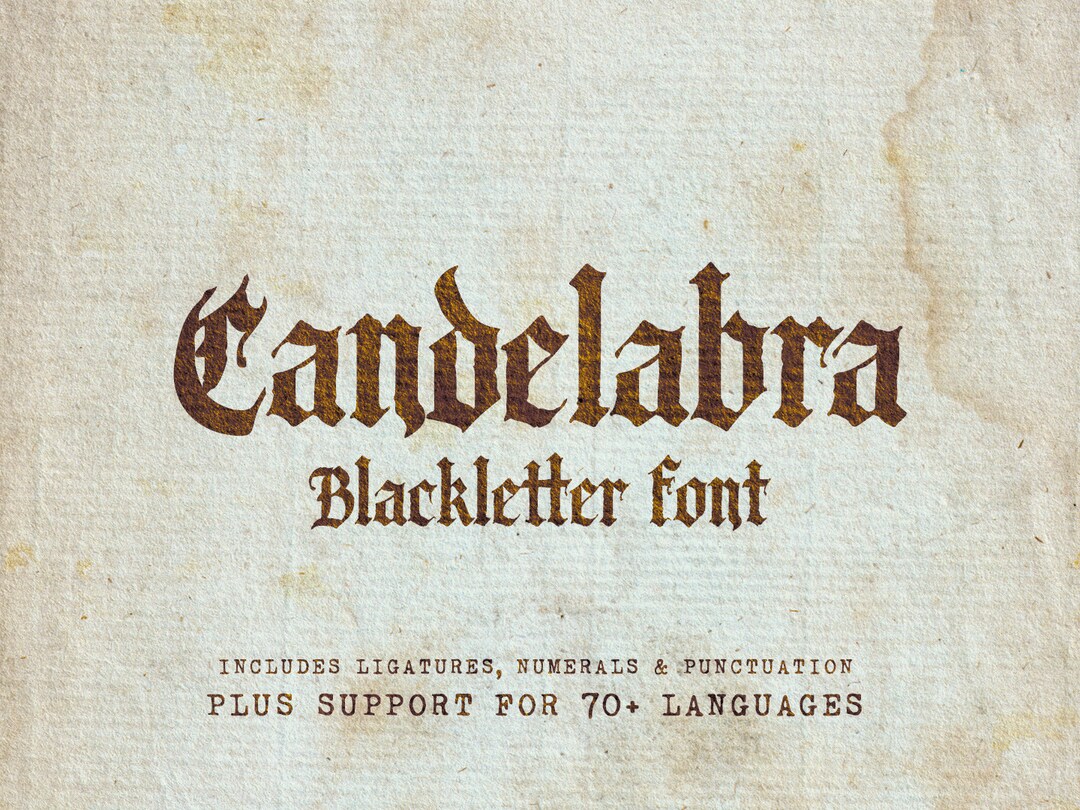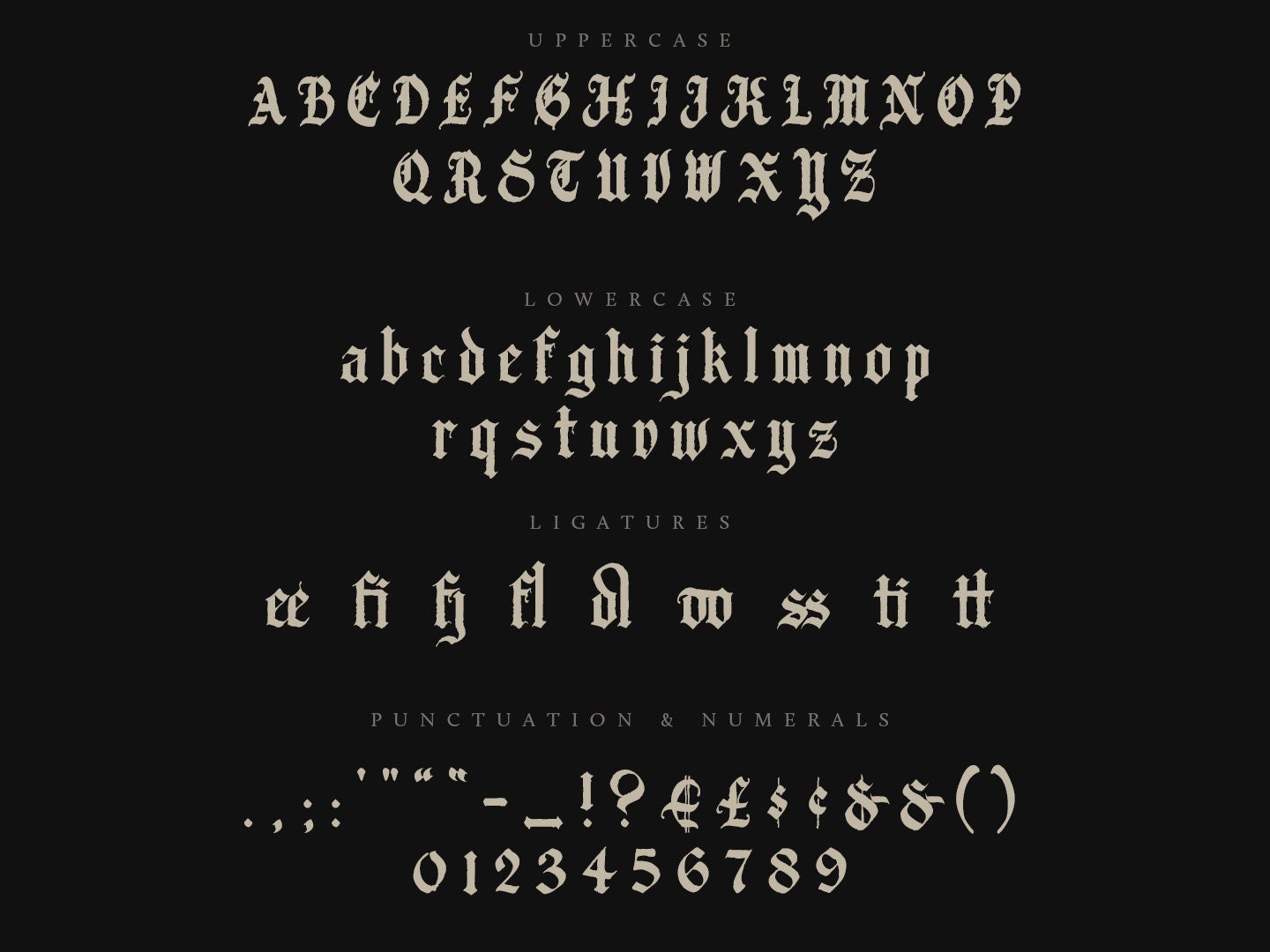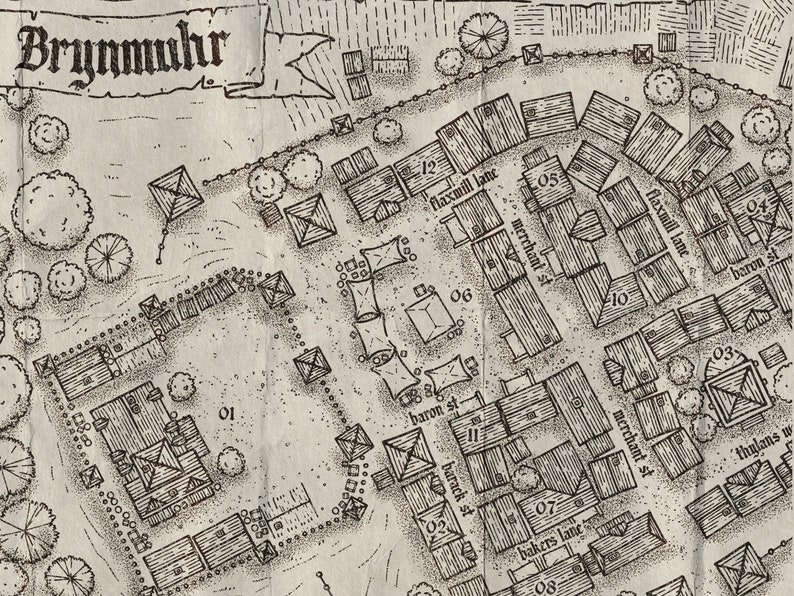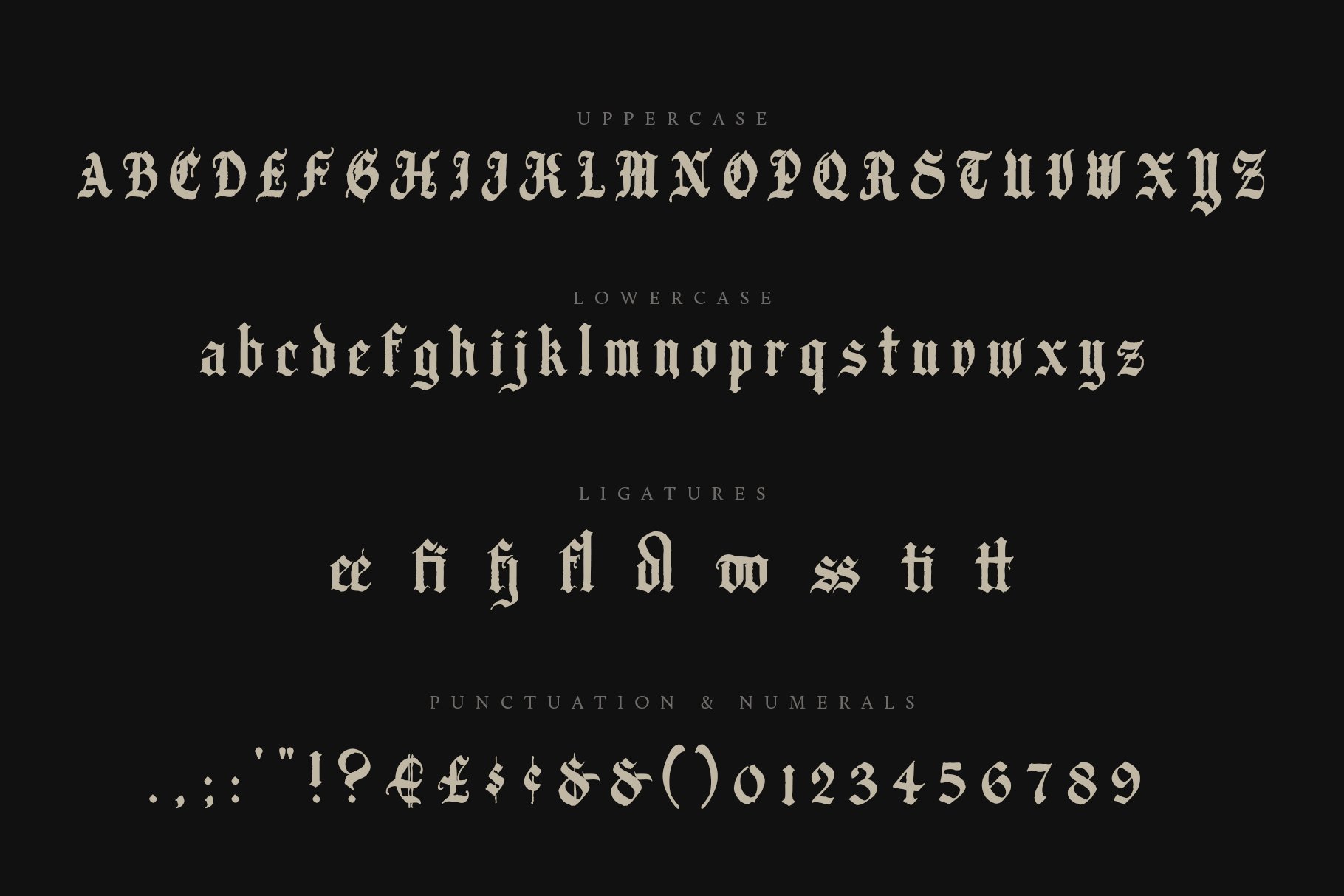
Candelabra Blackletter Font . Elevate your designs with our authentic blackletter fonts! Candelabra is a gothic blackletter font full of. Candelabra is a blackletter font full of medieval mysticism and age. See the font in use here. An ideal choice for tattoo studios, band logos and album art, trendy. Based on the bee legacy and magnetor experiments. Candelabra is a blackletter font full of medieval mysticism and age. Candelabra is a blackletter font full of medieval mysticism and age. An ideal choice for tattoo studios, band logos and album art, trendy fashion apparel, book covers,. Discover a diverse range of options, from gothic to old english, each with its own unique character and charm. A 3d isometric boxed set that looks like a blackletter font. Drawing inspiration from the middle ages,. An ideal choice for tattoo studios, band logos and album art,.
Candelabra is a gothic blackletter font full of. Drawing inspiration from the middle ages,. Candelabra is a blackletter font full of medieval mysticism and age. An ideal choice for tattoo studios, band logos and album art, trendy. A 3d isometric boxed set that looks like a blackletter font. Discover a diverse range of options, from gothic to old english, each with its own unique character and charm. See the font in use here. An ideal choice for tattoo studios, band logos and album art, trendy fashion apparel, book covers,. Candelabra is a blackletter font full of medieval mysticism and age. Candelabra is a blackletter font full of medieval mysticism and age.
Candelabra Blackletter Font + Extras Design Cuts
Candelabra Blackletter Font Elevate your designs with our authentic blackletter fonts! Based on the bee legacy and magnetor experiments. Drawing inspiration from the middle ages,. Elevate your designs with our authentic blackletter fonts! Discover a diverse range of options, from gothic to old english, each with its own unique character and charm. A 3d isometric boxed set that looks like a blackletter font. See the font in use here. Candelabra is a gothic blackletter font full of. An ideal choice for tattoo studios, band logos and album art,. An ideal choice for tattoo studios, band logos and album art, trendy fashion apparel, book covers,. Candelabra is a blackletter font full of medieval mysticism and age. Candelabra is a blackletter font full of medieval mysticism and age. An ideal choice for tattoo studios, band logos and album art, trendy. Candelabra is a blackletter font full of medieval mysticism and age.
Candelabra Blackletter Font + Extras Design Cuts Candelabra Blackletter Font An ideal choice for tattoo studios, band logos and album art,. Candelabra is a blackletter font full of medieval mysticism and age. Drawing inspiration from the middle ages,. Elevate your designs with our authentic blackletter fonts! An ideal choice for tattoo studios, band logos and album art, trendy fashion apparel, book covers,. See the font in use here. Based on. Candelabra Blackletter Font.
Candelabra Blackletter Font + Extras Mighty Deals Candelabra Blackletter Font Drawing inspiration from the middle ages,. Candelabra is a gothic blackletter font full of. An ideal choice for tattoo studios, band logos and album art, trendy. A 3d isometric boxed set that looks like a blackletter font. Candelabra is a blackletter font full of medieval mysticism and age. Discover a diverse range of options, from gothic to old english, each. Candelabra Blackletter Font.
Candelabra Font + Extras by peabstedisqu on DeviantArt Candelabra Blackletter Font Candelabra is a gothic blackletter font full of. An ideal choice for tattoo studios, band logos and album art, trendy fashion apparel, book covers,. Based on the bee legacy and magnetor experiments. An ideal choice for tattoo studios, band logos and album art, trendy. Candelabra is a blackletter font full of medieval mysticism and age. Discover a diverse range of. Candelabra Blackletter Font.
Candelabra Blackletter Font + Extras Design Cuts Candelabra Blackletter Font Discover a diverse range of options, from gothic to old english, each with its own unique character and charm. Candelabra is a blackletter font full of medieval mysticism and age. Elevate your designs with our authentic blackletter fonts! An ideal choice for tattoo studios, band logos and album art, trendy. Candelabra is a blackletter font full of medieval mysticism and. Candelabra Blackletter Font.
Candelabra Blackletter Font + Extras Design Cuts Candelabra Blackletter Font Discover a diverse range of options, from gothic to old english, each with its own unique character and charm. An ideal choice for tattoo studios, band logos and album art, trendy. Elevate your designs with our authentic blackletter fonts! See the font in use here. Drawing inspiration from the middle ages,. Candelabra is a gothic blackletter font full of. Candelabra. Candelabra Blackletter Font.
Candelabra Blackletter Font + Extras Design Cuts Candelabra Blackletter Font Drawing inspiration from the middle ages,. See the font in use here. Elevate your designs with our authentic blackletter fonts! Candelabra is a blackletter font full of medieval mysticism and age. Based on the bee legacy and magnetor experiments. Candelabra is a gothic blackletter font full of. Discover a diverse range of options, from gothic to old english, each with. Candelabra Blackletter Font.
Candelabra Blackletter Font + Extras Mighty Deals Candelabra Blackletter Font Candelabra is a blackletter font full of medieval mysticism and age. Candelabra is a blackletter font full of medieval mysticism and age. Drawing inspiration from the middle ages,. Discover a diverse range of options, from gothic to old english, each with its own unique character and charm. A 3d isometric boxed set that looks like a blackletter font. Elevate your. Candelabra Blackletter Font.
Candelabra Blackletter Font + Extras Mighty Deals Candelabra Blackletter Font Candelabra is a blackletter font full of medieval mysticism and age. An ideal choice for tattoo studios, band logos and album art,. See the font in use here. Based on the bee legacy and magnetor experiments. Candelabra is a gothic blackletter font full of. An ideal choice for tattoo studios, band logos and album art, trendy fashion apparel, book covers,.. Candelabra Blackletter Font.